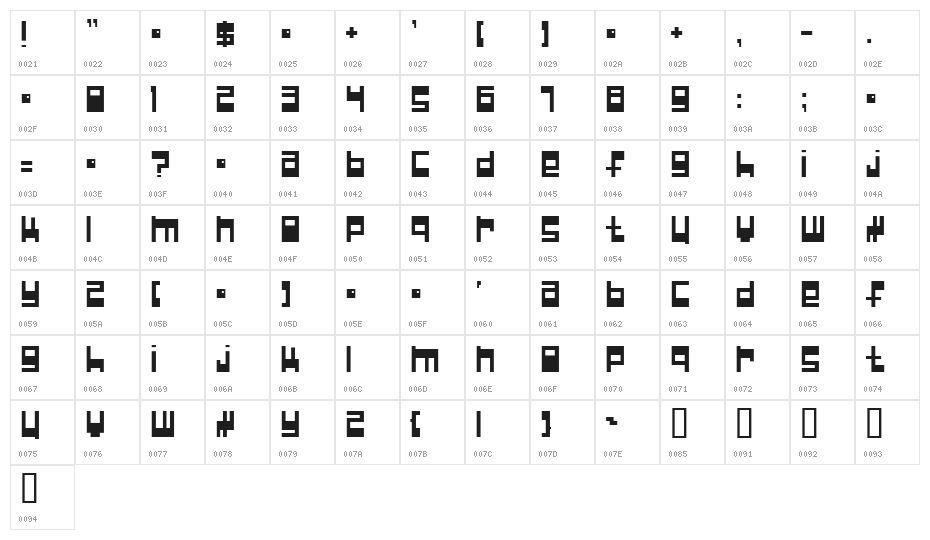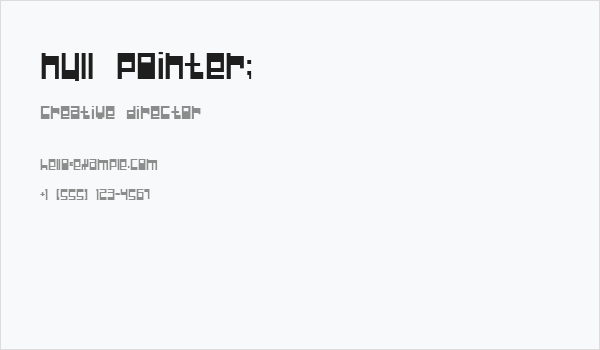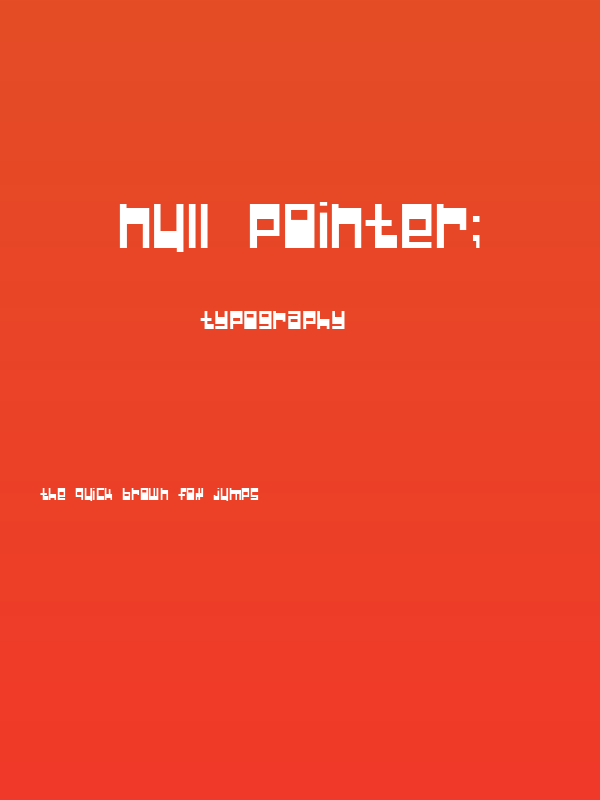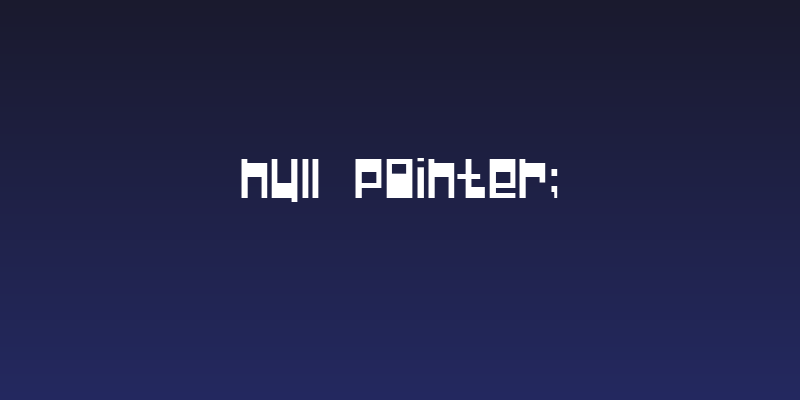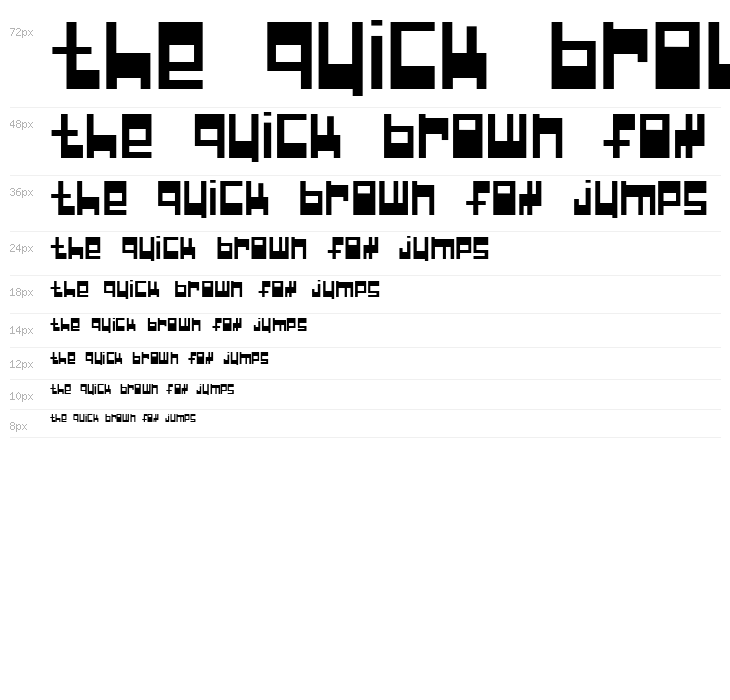
Null Pointer; Font
Null Pointer; Description
This font features a bold, geometric design with a distinctly modern and digital aesthetic. Each character is constructed with sharp, angular lines and uniform stroke widths, creating a blocky and pixelated appearance. The uppercase and lowercase letters maintain a consistent height, contributing to a cohesive and structured look. The numerals and special characters follow the same design principles, ensuring uniformity across all glyphs. This font's style is reminiscent of early digital displays or retro video game graphics, making it ideal for projects that require a tech-savvy or futuristic feel. Its boldness and simplicity make it highly legible, even at smaller sizes, while the unique character shapes add a touch of personality and flair.
Use CaseHeadlines, Logos, Digital interfaces
Proposed ProjectsSuitable for video game graphics, tech branding, digital interfaces, and futuristic posters.